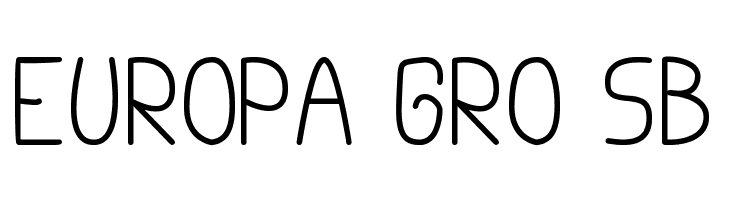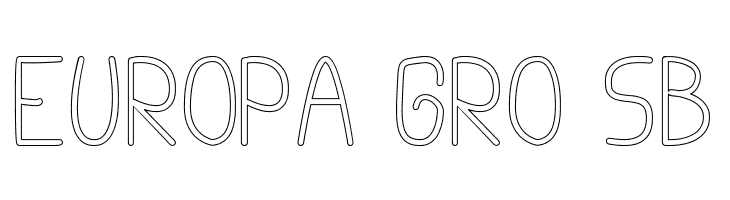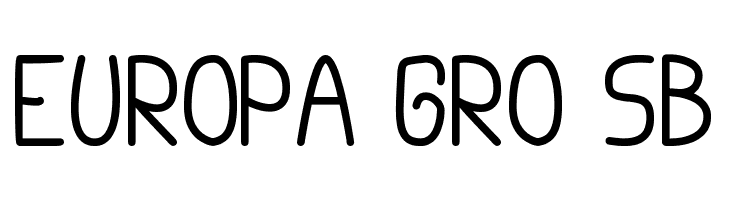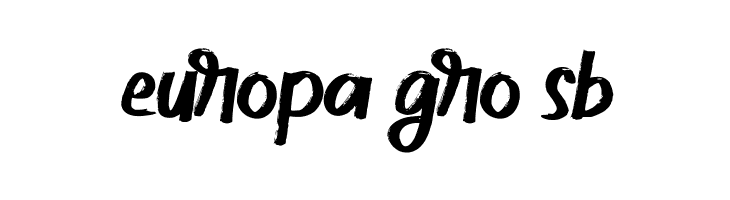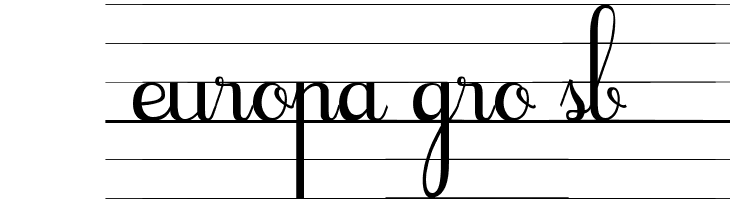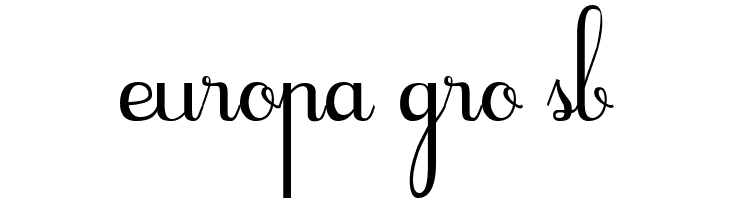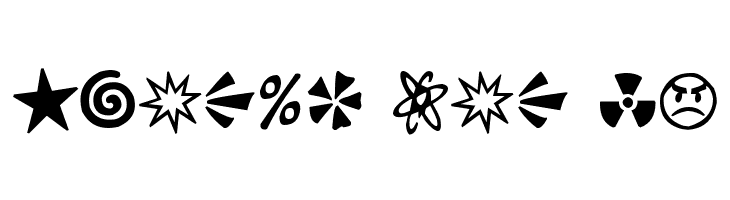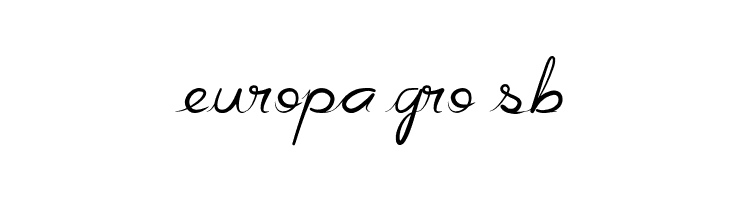
A bold, playful set of expressive and dynamic symbols with a comic book style.
A bold, expressive script font with a brush-like texture and dynamic strokes.
A playful, handwritten font with a casual and friendly appearance.
A playful, hand-drawn font with rounded edges and a whimsical style.
A playful, hollow, hand-drawn style font with rounded, outlined characters.
An elegant script font with flowing, connected strokes and a sophisticated appearance.
A playful cursive font with interconnected, flowing digits.